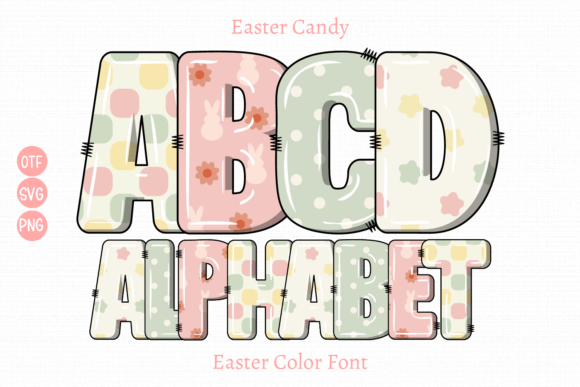
Spring into Creativity with Easter Candy Font
It’s that time of the year again when the world is painted in pastel hues and colorful decorations adorn every corner. As a designer, you’re probably itching to create something special for Easter, and that’s where the Easter Candy Font comes in. This delightful Easter Day color font is the perfect way to add a touch of playfulness and authenticity to your designs.
Whether you’re working on a blog post, logo, branding, or invitation, the Easter Candy Font is sure to bring a smile to your face and a pop of color to your project. Its versatility makes it a valuable asset for designers, allowing you to add a personal touch to any design. With its compatibility with popular design programs, you can get creative with this font and take your Easter projects to the next level.
Easter Candy Font Key Features
- Font Family: Easter Candy Font is a unique, hand-drawn font designed to resemble Easter-themed candy.
- Unique Characteristics: Features colorful, whimsical illustrations of Easter-themed candies, such as jelly beans, lollipops, and chocolate bunnies, integrated into the font’s design.
Easter Candy Font Review
Overall, I think the Easter Candy Font is a fun and playful typeface, perfect for adding a touch of whimsy to your designs. ✨ The bold and colorful lines evoke the feeling of springtime and Easter celebrations, making it a great choice for holiday-themed projects.
- Colorful and fun design that’s perfect for Easter-themed projects
- Unique and playful style that can add a touch of personality to your designs
- Works well for titles, headings, and short blocks of text
- May not be suitable for long blocks of text, as the font can become difficult to read
- Some letters may be tricky to read or require extra attention, such as the lowercase “e” and “a”
- Not ideal for formal or professional projects, as it may come across as too playful or childish
- ⚠️ May not be suitable for all audiences, as some people may find the design too loud or overwhelming
Overall, I think the Easter Candy Font is a great choice for designers who want to add a fun and playful touch to their projects. Just be sure to use it in moderation and consider your audience before making it a key part of your design.
Use the Easter Candy Font to add a playful touch to your designs, especially for Easter-themed projects.
Combine the Easter Candy Font with other fun fonts to create a unique and eye-catching design.
Easter Candy Font is perfect for:
Designing Easter-themed invitations, cards, and party decorations.
Creating Easter-themed social media graphics and ads.
Adding a playful touch to Easter-themed blog posts and articles.
Alternatives to Easter Candy Font
Great Vibes is a playful, cursive font that can be used to create a whimsical and festive atmosphere. It’s ideal for projects that require a fun and lively tone, such as Easter cards, invitations, or social media graphics. Compared to Easter Candy Font, Great Vibes has a more refined and elegant feel, making it suitable for a wider range of designs.
Luckiest Guy
Luckiest Guy is a fun, handwritten font that’s perfect for projects that need a casual and laid-back vibe. It’s great for Easter-themed designs that require a relaxed and friendly tone, such as greeting cards or posters. Compared to Easter Candy Font, Luckiest Guy has a more rustic and informal feel, making it ideal for designs that need to convey a sense of approachability.